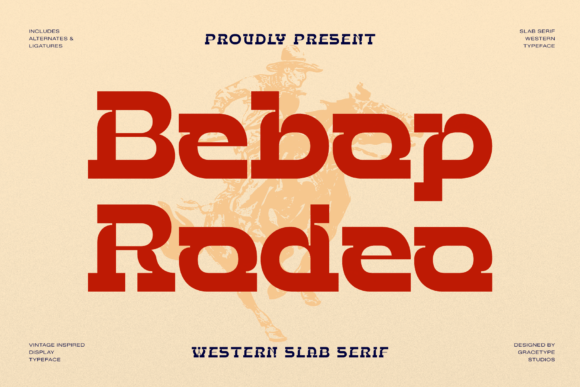
Bebop Rodeo Font: Bold Branding for Small Business
I still remember the exact moment I realized my handmade candle labels looked amateurish despite using premium soy wax and custom scents. I was standing at a local market, watching customers pick up my jars, squint at the text, and put them back down without buying. The product was excellent, but my visual presentation lacked authority and warmth. That afternoon, I began searching through Fonts that could convey heritage and quality, eventually discovering Bebop Rodeo. This specific typeface transformed my packaging from generic craft fair fare to a cohesive brand experience that felt established and trustworthy.
Using Bebop Rodeo Slab Serif for Product Packaging Labels
When selecting Bebop Rodeo for physical product labels, you are choosing a Slab Serif that demands attention while maintaining a welcoming, rustic charm. As a small business owner managing packaging design, I found that this font’s massive, horizontally expanded uppercase letterforms uniquely characterize the product name without needing excessive graphic embellishments. For my candle line, placing the scent name in this commanding western slab serif typeface created an immediate focal point on the jar. The wide stance of the letters filled the label space efficiently, reducing the need for additional decorative borders or busy illustrations that often clutter small packaging.
This approach works exceptionally well for businesses selling tangible goods where shelf appeal matters. Whether you are designing a box for artisanal cookies, a tag for leather goods, or a bottle label for small-batch hot sauce, the weight of this display font communicates substance. It tells the customer that there is a story behind the product before they even read the ingredients list. However, because the letterforms are so distinctively wide, I recommend reserving this typeface strictly for the product title or primary headline on your packaging. Trying to squeeze these expansive characters into a tight ingredient list or legal disclaimer will compromise readability and defeat the purpose of choosing such a bold aesthetic.
Bebop Rodeo Typography for Social Media Graphics and Ads
Transitioning my brand identity to digital platforms required adapting Bebop Rodeo for social media graphics where screen real estate is limited but impact is essential. When creating Instagram templates or Facebook ad headers, this font serves as a powerful hook that stops the scroll. The unique character shapes photograph beautifully and remain legible even when scaled down for mobile viewing, which is crucial for online sellers relying on visual marketing. I started using it exclusively for sale announcements, new collection launches, and quote overlays, pairing the bold typography with simple, high-contrast photography to let the words do the heavy lifting.
For entrepreneurs running digital ads, consistency is key to building recognition. Using the same commanding western slab serif typeface across your Stories, Reels covers, and static posts creates a visual thread that followers begin to associate with your business instantly. I noticed that my engagement improved not because the content changed drastically, but because the presentation became predictable in the best possible way. Customers knew what to expect visually, which reduced cognitive load and made my promotional content feel more professional. Just ensure you leave adequate negative space around the text; these horizontally expanded uppercase letterforms need room to breathe on a square or vertical canvas to avoid looking cramped or aggressive.
Pairing Bebop Rodeo Display Font with Clean Sans Serif Body Text
A common mistake I made early in my branding journey was trying to make every element match the intensity of Bebop Rodeo, but successful Fonts strategy relies heavily on contrast and hierarchy. To make this Slab Serif truly shine in website banners, menus, or thank-you cards, you must pair it with a neutral, clean sans serif font for supporting text. In my own shop, I use a simple geometric sans serif for product descriptions, pricing, and contact information. This combination allows the display font to act as the charismatic host while the body text handles the practical details without competing for attention.
This pairing strategy is vital for maintaining professionalism across all business touchpoints. If you are designing a café menu, use the western slab serif for section headers like "Espresso" or "Pastries," and switch to a highly readable sans serif for the item listings and prices. The same logic applies to e-commerce sites; use the bold typeface for hero images and category titles, but keep product specs and checkout instructions in a standard web-safe font. This balance ensures that your brand feels curated rather than chaotic. Remember that while Bebop Rodeo chisels an unyielding frontier legacy into your canvas, your customers still need functional clarity to complete a purchase or navigate your services.
Establishing Brand Authority with Western Slab Serif Logos
Integrating Bebop Rodeo into logo design helped me move away from trendy, fleeting aesthetics toward a timeless brand mark that feels rooted in tradition. For small business owners, especially those in niche markets like western wear, outdoor gear, vintage restoration, or artisanal food, this font provides instant contextual signaling. The massive, horizontally expanded uppercase letterforms uniquely characterize a brand as rugged yet refined, bridging the gap between old-world craftsmanship and modern commerce. When I redesigned my logo using this typeface, I didn't need to add horseshoes or cacti icons; the typography itself carried the entire thematic weight.
Ultimately, upgrading to a distinctive typeface like this was about more than just aesthetics; it was about signaling to my customers that I take my craft seriously. The right typography acts as a silent ambassador for your business, conveying quality and intention before a single word is read. Whether you are refreshing a bakery box, launching a coaching brand, or printing stickers for your Etsy shop, choosing a font with personality and presence can be the difference between blending in and standing out. My sales didn't double overnight, but my confidence did, and that confidence translated into better photos, clearer messaging, and eventually, a loyal customer base that recognized my products by their bold, unmistakable lettering alone.